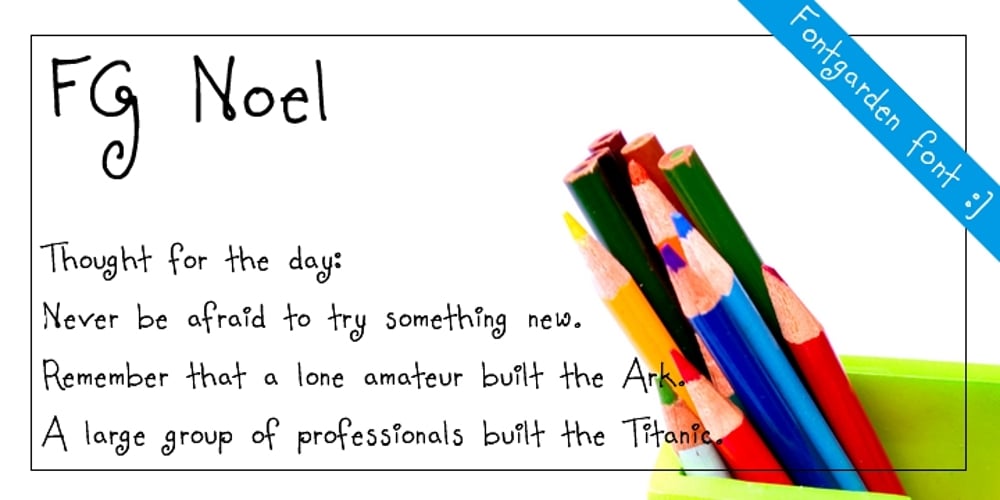
FG Noel Font Family was designed by published by YOFF. FG Noel contains 1 styles and family package options. FG Noel works great at small and large sizes. I can imagine a kids’ book with this font and it will be perfect for cute quotations on greeting cards.